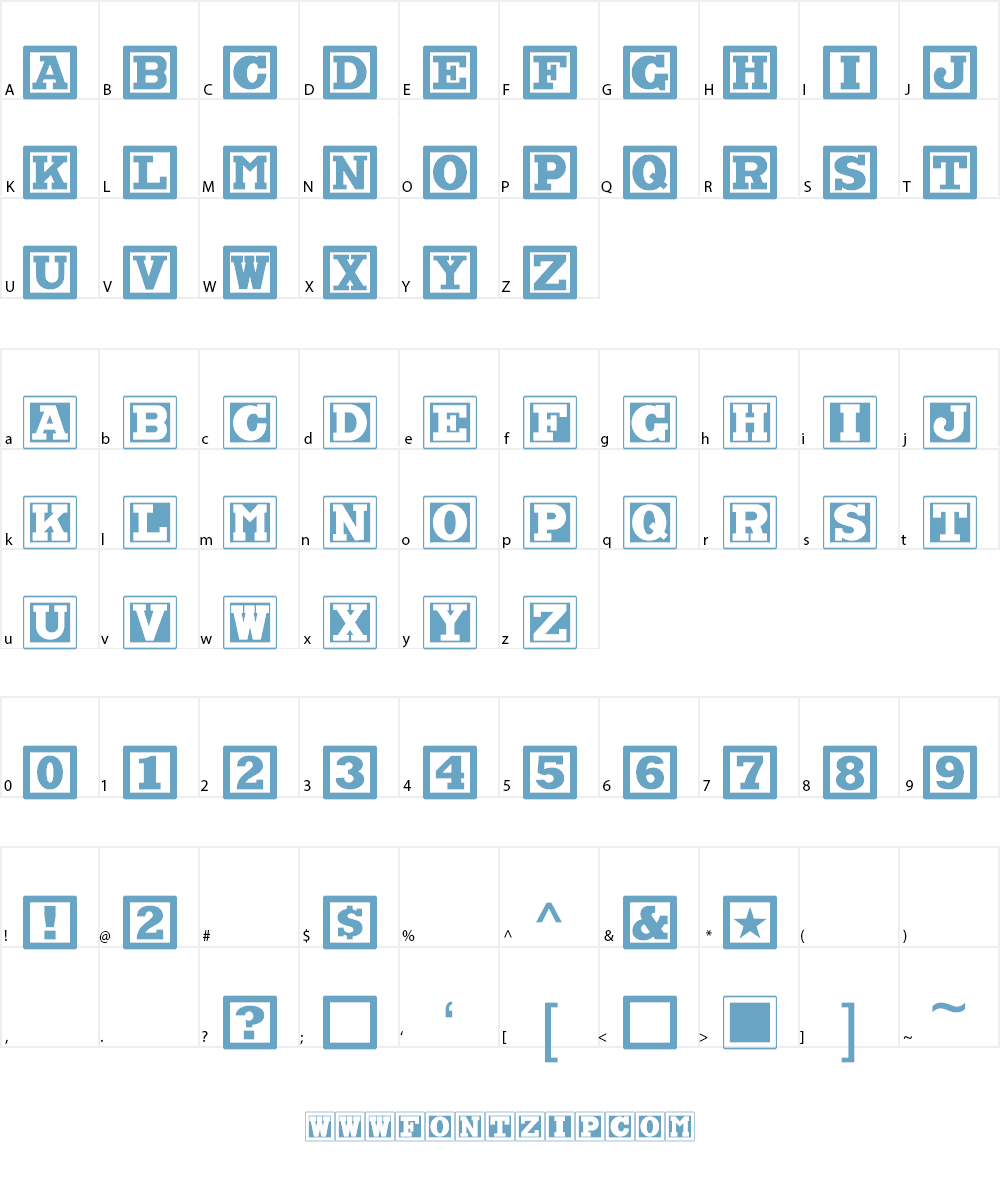
A nostalgic rendition of children's letter blocks. The uppercase letters are black on a white ground, the lowercase letters white on a black ground. Enjoy!